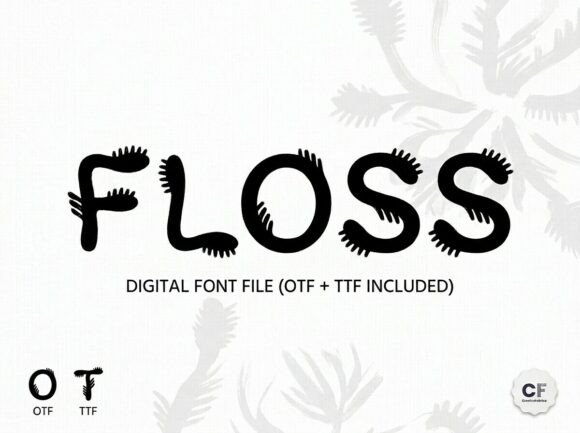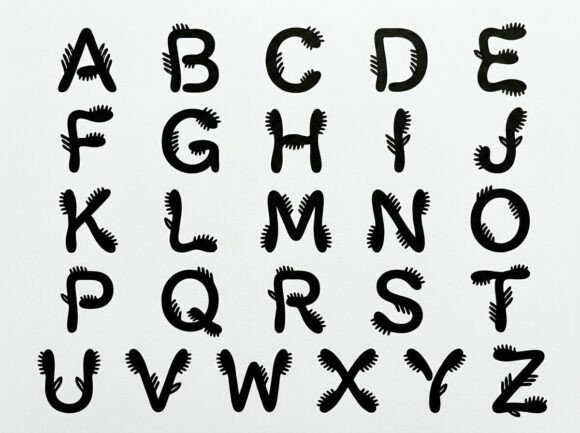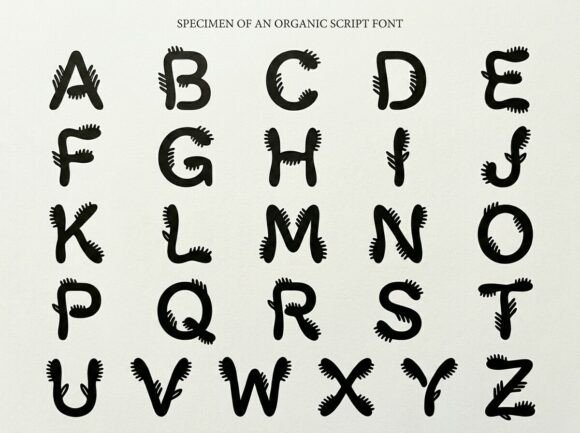
Introducing Floss Font: The Ultimate Decorative Display Font for Creative Minds
Are you tired of using the same old fonts for your creative projects? Look no further than Floss Font, a stunning decorative display font designed to grab attention and make a statement. With its unique artistic elements and strong visual personality, this font is perfect for creators who want to break away from the ordinary and add a touch of elegance to their work.
What Makes Floss Font So Special?
Floss Font is a versatile font that can be used for a variety of creative projects, including bold headlines, artistic logos, and creative packaging. Its professional and polished finish ensures that your work looks high-end and sophisticated, making it perfect for designers, crafters, and artists who want to take their projects to the next level.
One of the standout features of Floss Font is its unique artistic elements. Each letter is carefully crafted to be a work of art, making it perfect for high-impact headlines, logos, and decorative initials. The font’s strong visual personality is sure to make your work stand out from the crowd and leave a lasting impression on your audience.
Before you purchase Floss Font, it’s essential to note that it’s an ALL-CAPS (Uppercase Only) display typeface. This means that it does not include lowercase letters, making it specifically designed for high-impact headlines, logos, and decorative initials where every letter is a work of art. If you’re looking for a font that can be used for body text or other applications that require lowercase letters, Floss Font may not be the best choice. However, if you’re looking for a font that can make a statement and add a touch of elegance to your work, Floss Font is an excellent option.
Uses for Floss Font
Floss Font is a versatile font that can be used for a variety of creative projects, including:
- Headlines and Titles: Use Floss Font to create bold and eye-catching headlines that grab attention and make a statement.
- Logos and Branding: Create a professional and polished logo that reflects your brand’s personality and style.
- Packaging and Product Design: Add a touch of elegance to your product packaging and make it stand out on store shelves.
- Artistic Projects: Use Floss Font to add a creative and artistic touch to your projects, such as posters, flyers, and brochures.
Tips for Using Floss Font
To get the most out of Floss Font, here are a few tips to keep in mind:
- Use it sparingly: Floss Font is a bold and eye-catching font, so use it sparingly to avoid overwhelming your audience.
- Pair it with a simple font: Pair Floss Font with a simple font to create contrast and make your work more visually appealing.
- Experiment with different colors: Floss Font looks great in a variety of colors, so experiment with different colors to find the one that works best for your project.
Floss Font is a stunning decorative display font that’s perfect for creators who want to add a touch of elegance and sophistication to their work. With its unique artistic elements, strong visual personality, and versatility, Floss Font is an excellent choice for a variety of creative projects. Whether you’re a designer, crafter, or artist, Floss Font is sure to make your work stand out from the crowd and leave a lasting impression on your audience.